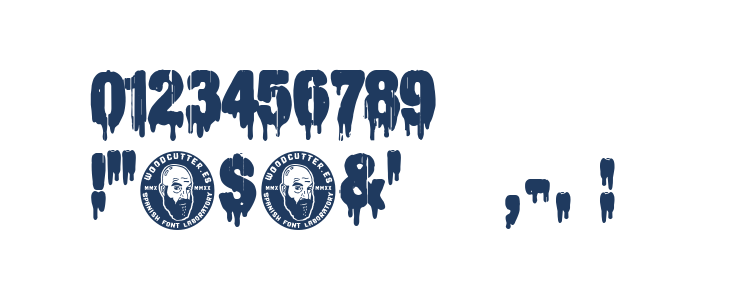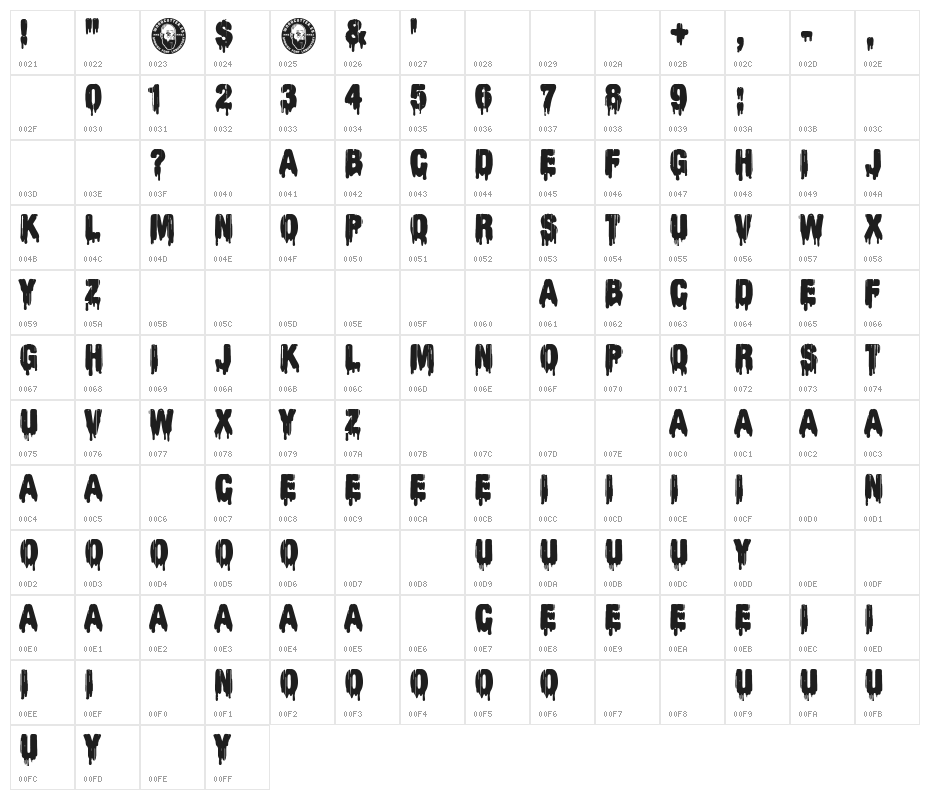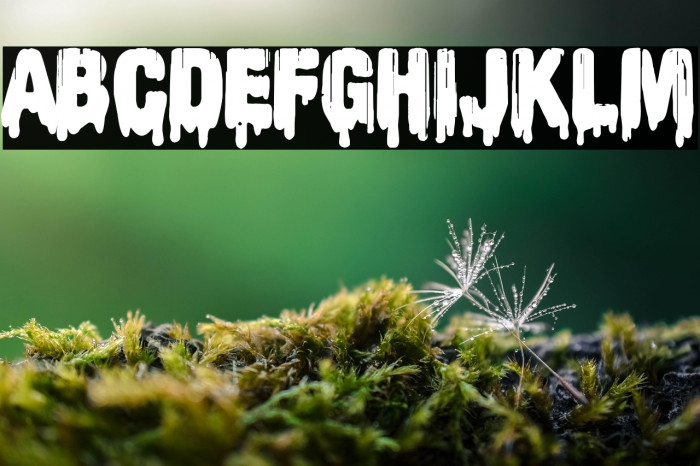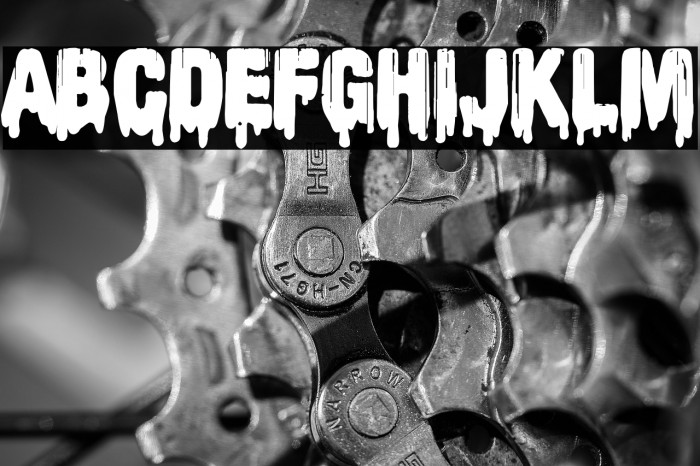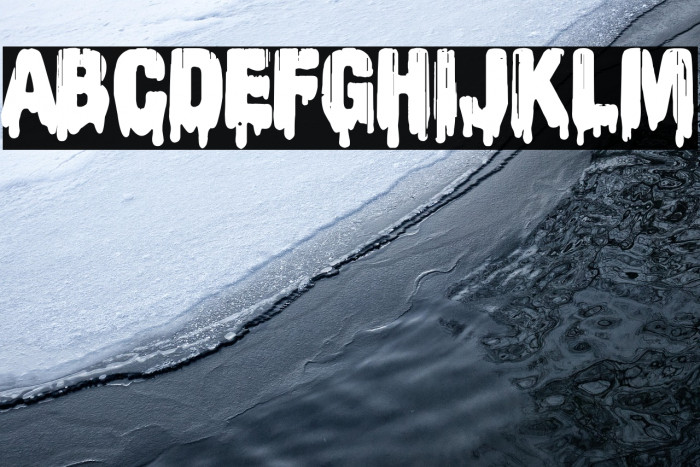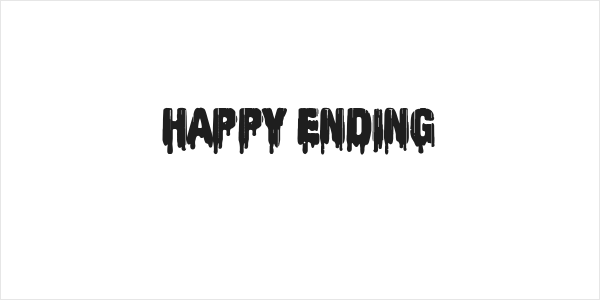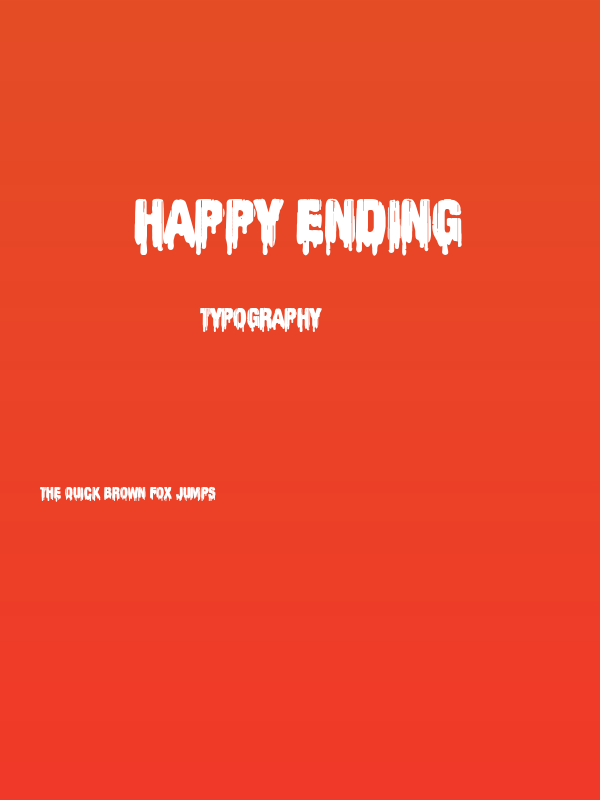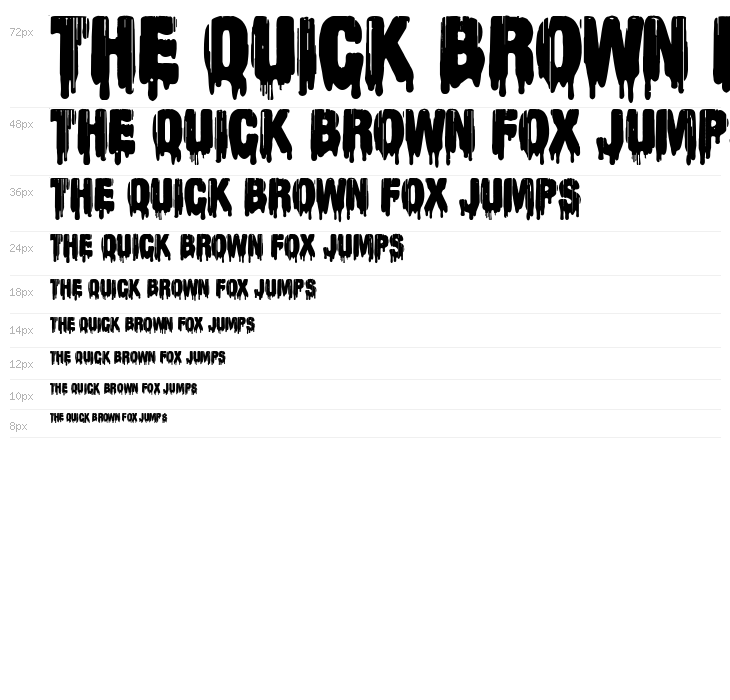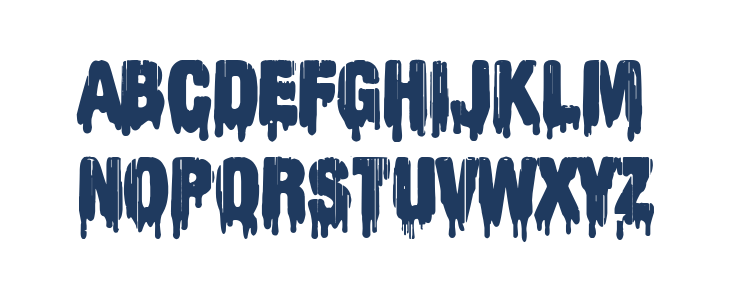
Happy Ending Font
Happy Ending Description
This font features a bold and dramatic style with a dripping effect that gives it a unique, edgy appearance. The characters are uppercase and lowercase letters, numbers, and a selection of special characters. The design mimics the look of wet paint or ink dripping down, creating a sense of movement and fluidity. This style is eye-catching and can add a rebellious or artistic flair to any project. The boldness of the characters ensures readability while maintaining a distinct visual impact.
| Proposed Projects | Ideal for horror-themed designs, edgy posters, album covers, or street art-inspired projects. |